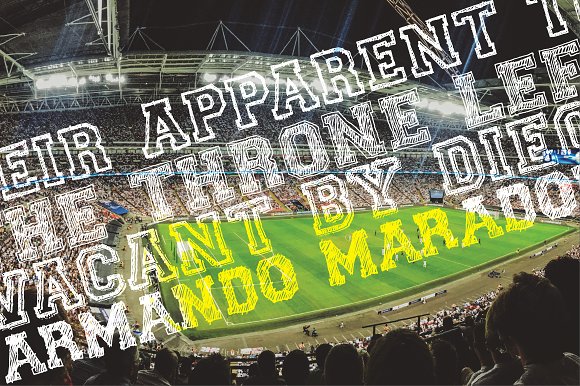
Introducing College Dropout Font, a captivating and nostalgic addition to your font collection! Created by the talented team at Good Gravy Type, this slab serif font is the perfect blend of hand-sketching and organic design. Its unique charm will transport you back to those unforgettable, less-than-academic moments from your school days.
With College Dropout Font, you can effortlessly capture the essence of youthful energy and rebellious spirit. Its bold and confident strokes make a powerful statement, ensuring your text stands out from the crowd. Whether you're designing a poster, creating a logo, or crafting a social media campaign, this font will add a touch of authenticity and personality.
Dive into a world of creativity as College Dropout Font offers endless possibilities. Its versatile nature allows you to use it across various projects, from edgy skateboard brands to retro-inspired clothing lines. Embrace its playful and free-spirited vibe to evoke emotions and connect with your target audience on a deeper level.
The hand-sketching technique employed in College Dropout Font adds an irresistible human touch to your designs. It breaks away from the sterile and impersonal digital aesthetics, giving your text a warm and nostalgic feel. Watch as your words come alive with character and charm, leaving a lasting impression on anyone who lays eyes on them.
Don't settle for ordinary fonts when you can make a statement with College Dropout Font. Stand out from the mundane and mundane with its captivating style. Its eye-catching appeal will captivate your audience and draw them in, urging them to take action.